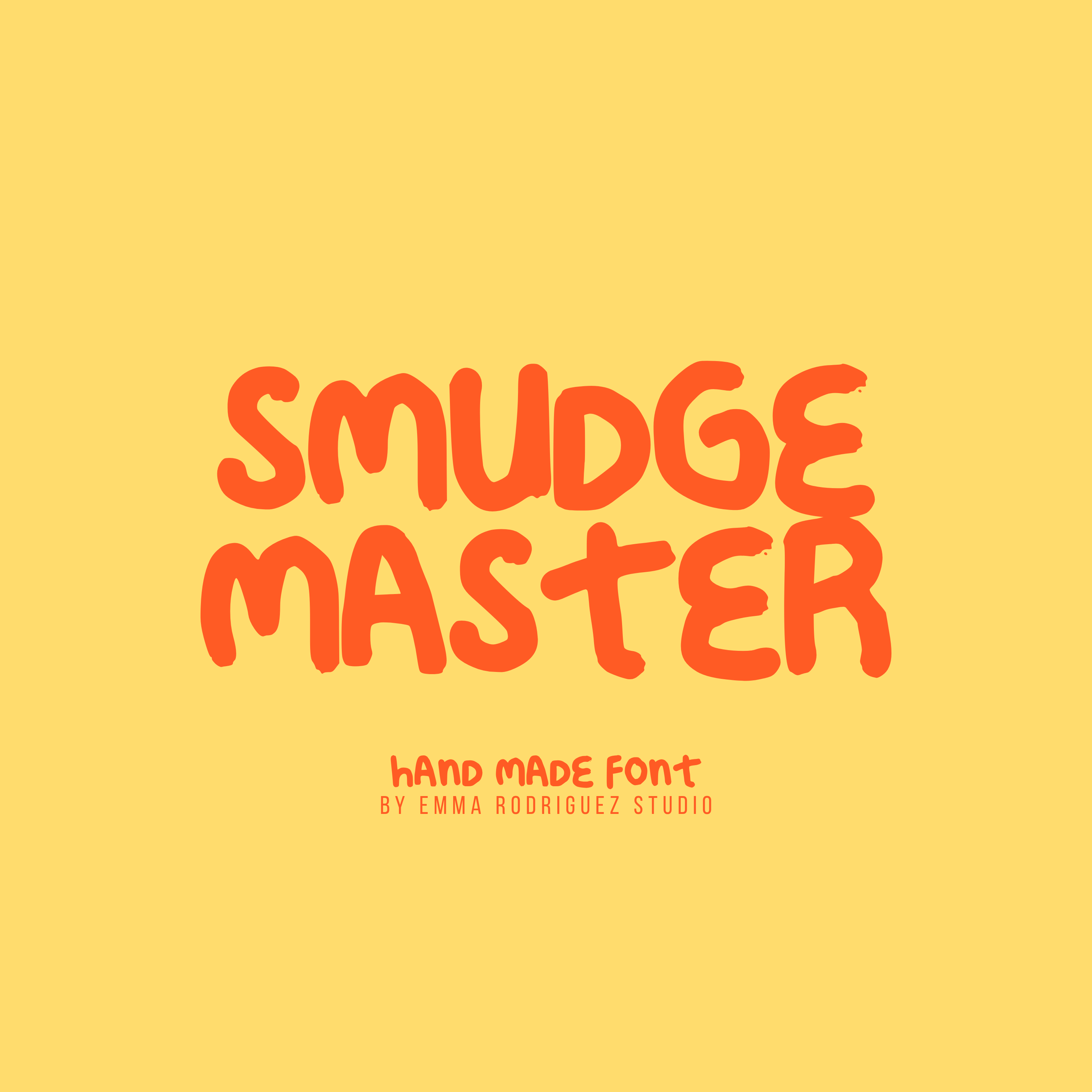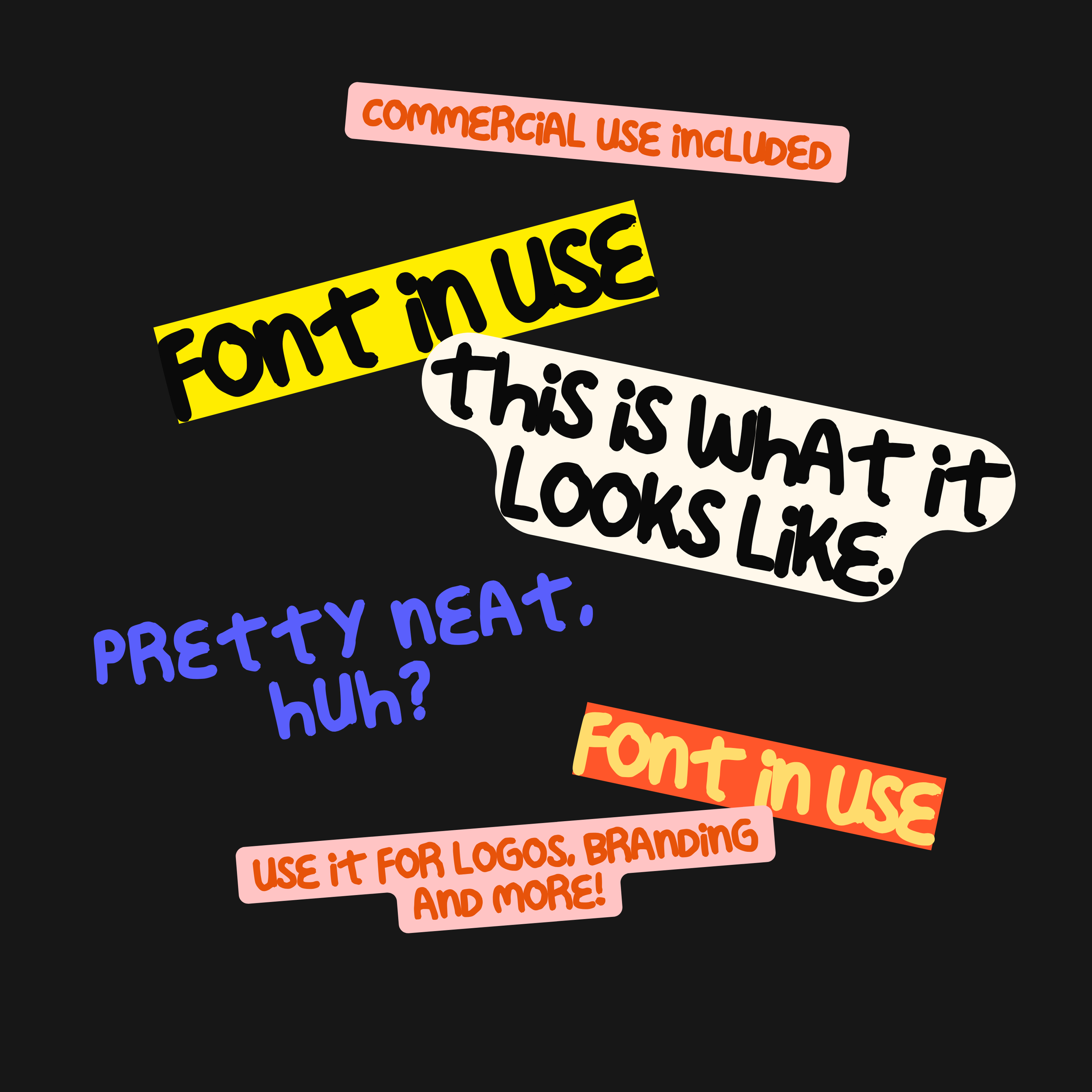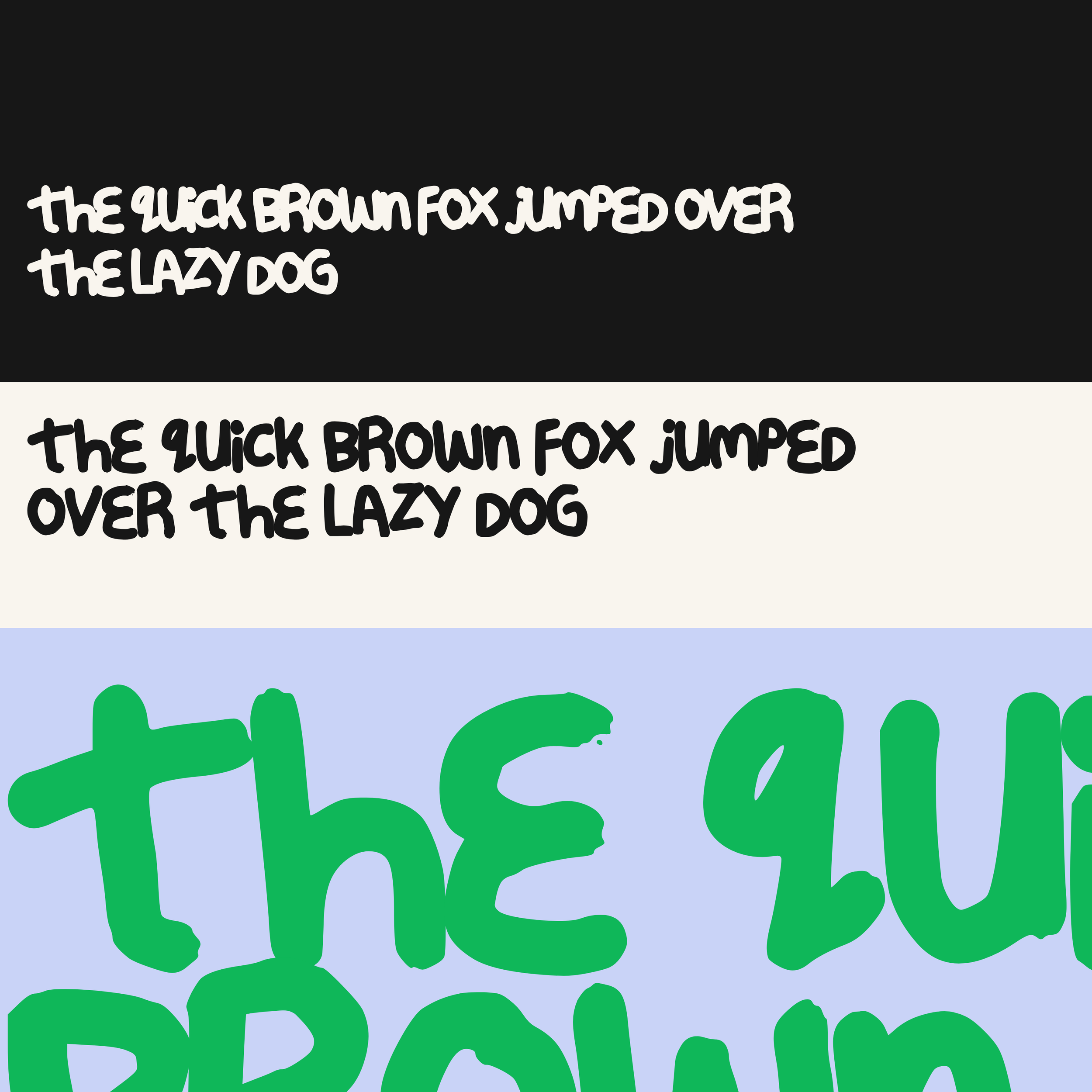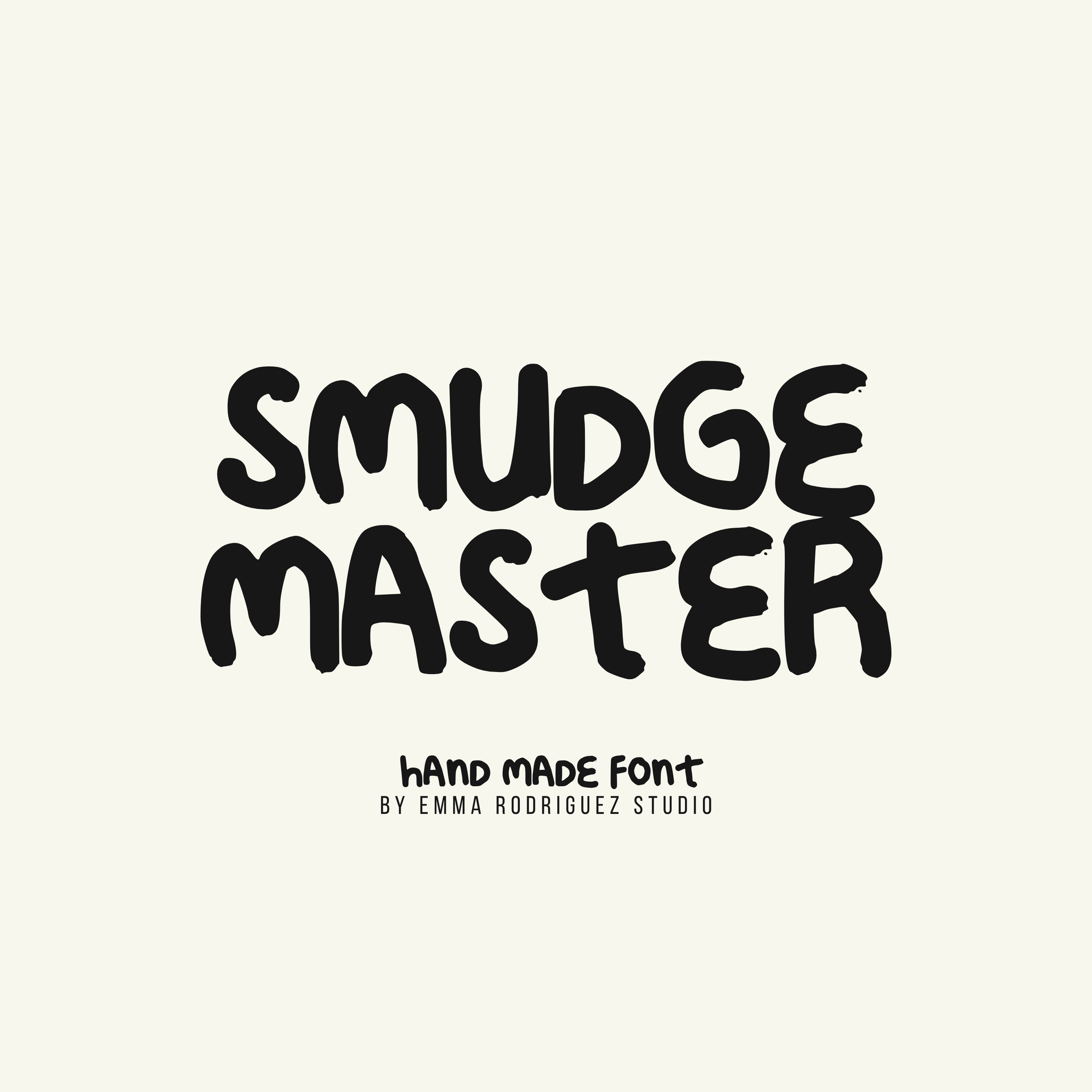
Smudge Master Font - Handwritten Wonky Type
Smudge Master is a hand drawn display font with soft chunky shapes, uneven proportions and intentionally imperfect letterforms. It feels loose, slightly smudged and casually put together, with enough personality to stand out without becoming difficult to use.
This is an all caps font, created for graphic designers, illustrators, artists, poster makers, branding designers, small businesses and Etsy sellers looking for typography that feels playful, handmade and less polished than a standard display typeface.
The uneven shapes and soft irregular construction work especially well for contemporary editorial design, poster typography, playful branding and packaging where a bit of imperfection makes the whole thing more interesting.
• All caps characters
• Numbers and punctuation
Please note that Smudge Master is intentionally handmade and imperfect. Letterforms, spacing, proportions, alignment and overall form may vary throughout the character set. Uneven shapes and irregular spacing are deliberate features rather than errors, and some manual kerning or letter placement may be useful depending on your layout.